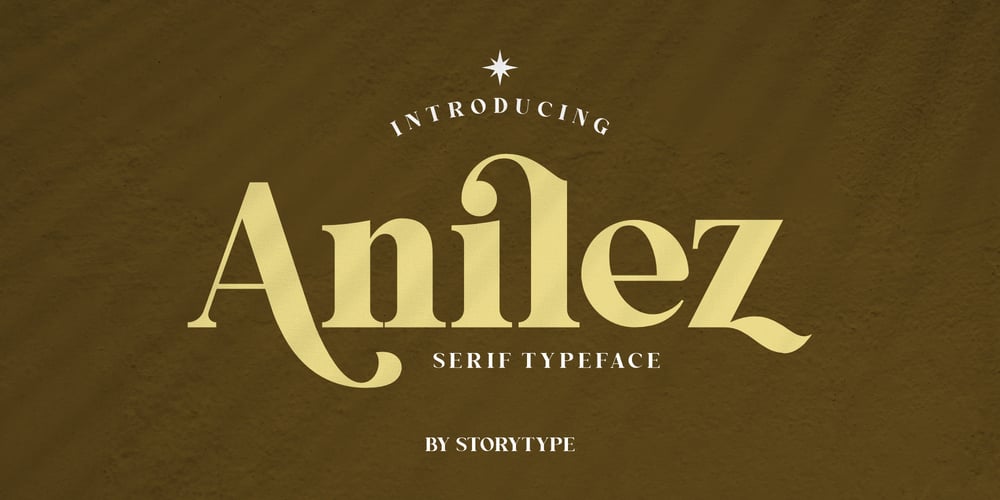
Anilez
Anilez font
Anilez Font Family was designed by Heru Utama Putra and published by Letterena Studios. Anilez contains 2 styles and family package options. Anilez is a cool and bold serif typeface that has its own unique style & modern look.This typeface is perfect for an elegant & luxury logo, book, movie title design, fashion brand, magazine, clothes, lettering, quotes, and so much more.